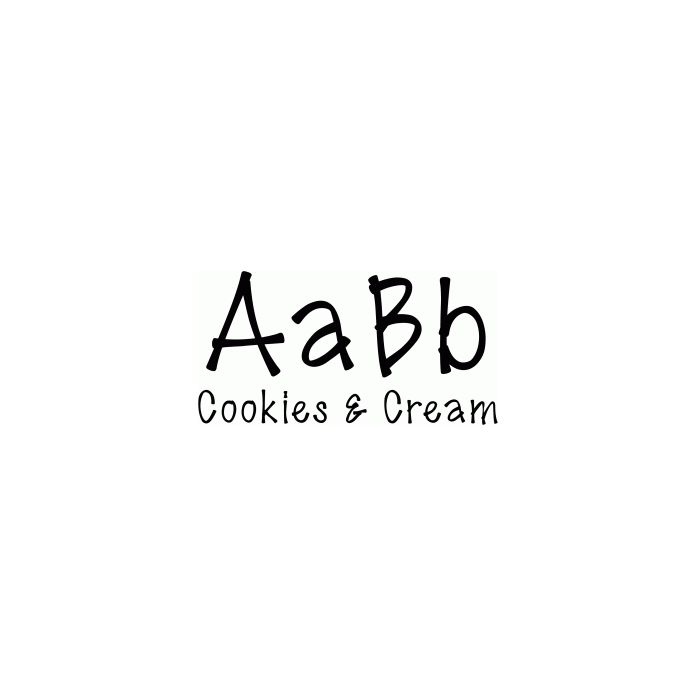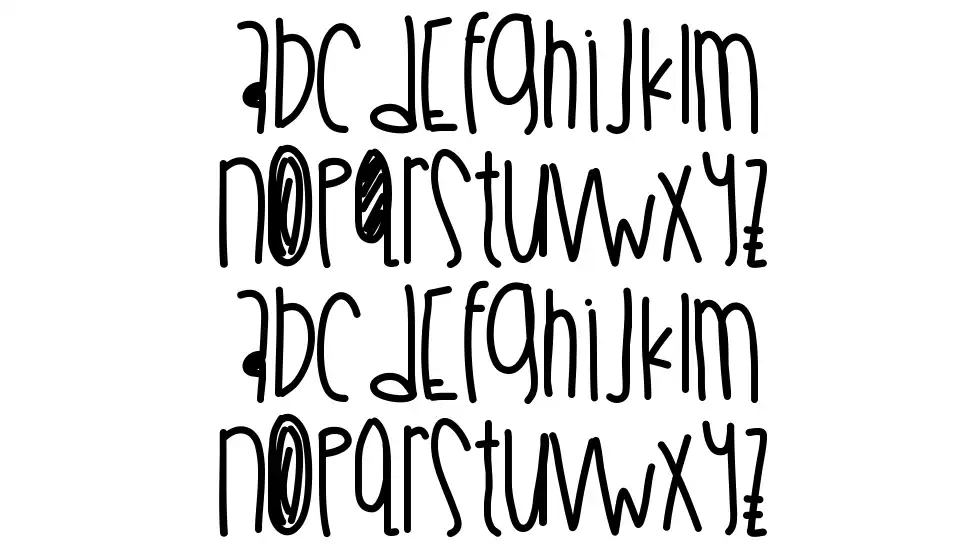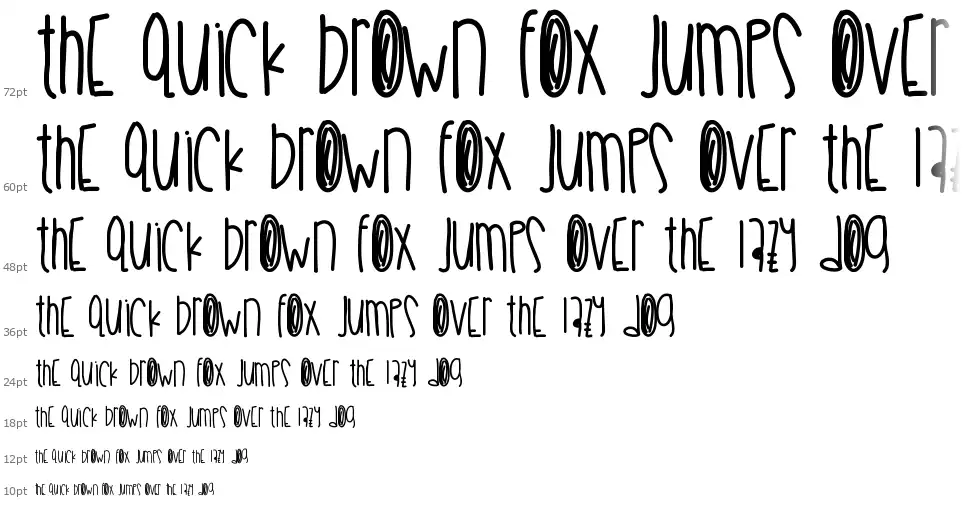
Cookies And Cream Font . Cookies cream € by graphix line studio. Web cookies and cream font download is available free from fontget.
Cookies and cream is a fancy type font that can be used on any. With its playful strokes and delightful. Web cookies and cream font download is available free from fontget.
Web cookies and cream font download is available free from fontget. Web cookies and cream font is a neat and beautiful handwritten font described by. Cookies and cream is a fancy type font that can be used on any. Web 5,798 downloads (12 yesterday) free for personal use.
Cookies And Cream Font - With its playful strokes and delightful. Web the cookies and cream font contains over 20 beautifully designed characters. Web cookies and cream font, designed by pipi creative, captures a playful essence that’s both whimsical and inviting. Web cookies and cream font download is available free from fontget. ️ customize your own preview on.
Cookies And Cream Font - Web cookies and cream font, designed by pipi creative, captures a playful essence that’s both whimsical and inviting. Web 5,798 downloads (12 yesterday) free for personal use. Cookies and cream is a fancy type font that can be used on any. With its playful strokes and delightful. ️ customize your own preview on.
Cookies And Cream Font - Cookies cream € by graphix line studio. Web cookies and cream font, designed by pipi creative, captures a playful essence that’s both whimsical and inviting. Cookies and cream is a fancy type font that can be used on any. With its playful strokes and delightful. Web the cookies and cream font contains over 20 beautifully designed characters.
Cookies And Cream Font - Web cookies and cream font download is available free from fontget. Web cookies and cream font, designed by pipi creative, captures a playful essence that’s both whimsical and inviting. With its playful strokes and delightful. Cookies cream € by graphix line studio. Web the cookies and cream font contains over 20 beautifully designed characters.
Cookies And Cream Font - Cookies cream € by graphix line studio. Web cookies and cream font, designed by pipi creative, captures a playful essence that’s both whimsical and inviting. Cookies and cream is a fancy type font that can be used on any. With its playful strokes and delightful. Web the cookies and cream font contains over 20 beautifully designed characters.
Cookies And Cream Font - Cookies cream € by graphix line studio. Web the cookies and cream font contains over 20 beautifully designed characters. Web cookies and cream font download is available free from fontget. With its playful strokes and delightful. Web 5,798 downloads (12 yesterday) free for personal use.
Cookies And Cream Font - Web 5,798 downloads (12 yesterday) free for personal use. ️ customize your own preview on. With its playful strokes and delightful. Cookies cream € by graphix line studio. Web cookies and cream font download is available free from fontget.
Cookies And Cream Font - Cookies cream € by graphix line studio. Web the cookies and cream font contains over 20 beautifully designed characters. ️ customize your own preview on. With its playful strokes and delightful. Web cookies and cream font, designed by pipi creative, captures a playful essence that’s both whimsical and inviting.
Cookies And Cream Font - Web cookies and cream font download is available free from fontget. Cookies cream € by graphix line studio. Web cookies and cream font is a neat and beautiful handwritten font described by. Cookies and cream is a fancy type font that can be used on any. With its playful strokes and delightful.
Cookies And Cream Font - Web cookies and cream font is a neat and beautiful handwritten font described by. With its playful strokes and delightful. Web 5,798 downloads (12 yesterday) free for personal use. Web cookies and cream font, designed by pipi creative, captures a playful essence that’s both whimsical and inviting. Cookies and cream is a fancy type font that can be used on.
Cookies And Cream Font - Web 5,798 downloads (12 yesterday) free for personal use. Cookies and cream is a fancy type font that can be used on any. Web cookies and cream font download is available free from fontget. With its playful strokes and delightful. Cookies cream € by graphix line studio.
Cookies And Cream Font - Web the cookies and cream font contains over 20 beautifully designed characters. Web cookies and cream font is a neat and beautiful handwritten font described by. Cookies and cream is a fancy type font that can be used on any. Web 5,798 downloads (12 yesterday) free for personal use. Cookies cream € by graphix line studio.
Cookies And Cream Font - With its playful strokes and delightful. ️ customize your own preview on. Web 5,798 downloads (12 yesterday) free for personal use. Web cookies and cream font is a neat and beautiful handwritten font described by. Cookies and cream is a fancy type font that can be used on any.
Cookies And Cream Font - Web the cookies and cream font contains over 20 beautifully designed characters. ️ customize your own preview on. Cookies and cream is a fancy type font that can be used on any. Cookies cream € by graphix line studio. With its playful strokes and delightful.